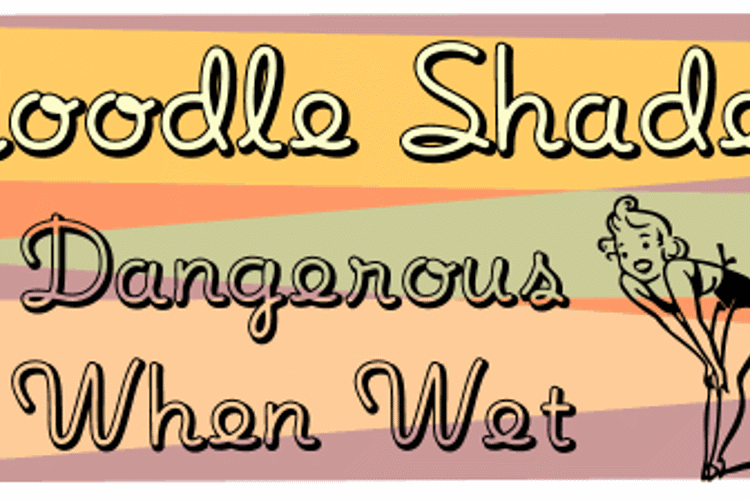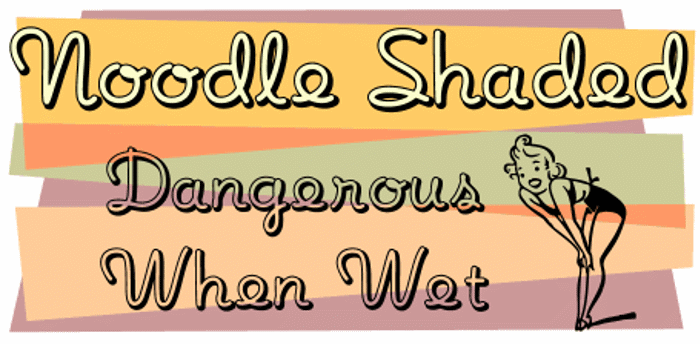
Noodle Shaded Font
About Noodle Shaded Font
Noodle Shaded is my shaded remix of Noodle Script (you might wanna download that font, too). This font has only minimal punctuation. Use it at point sizes of 24 or above.